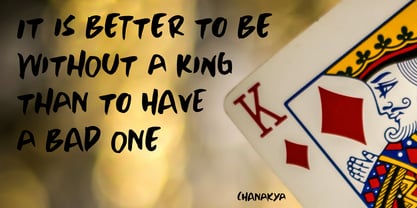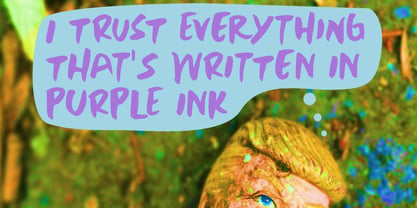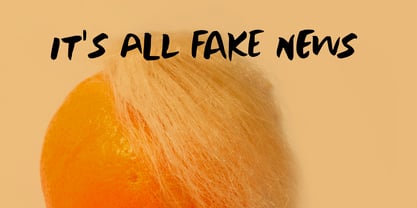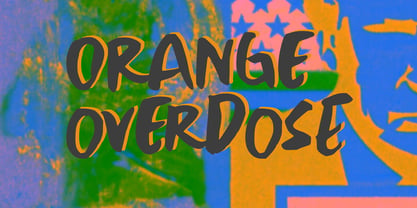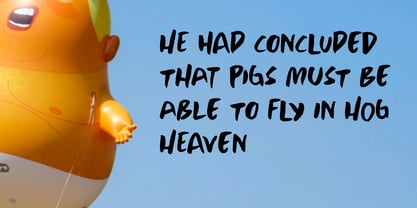
Orange Overdose Pro
by Hanoded
So… I’m from The Netherlands and we love the colour orange. But sometimes you can’t escape the feeling that something you have liked for a long time now has a negative association, especially when an orange coloured person seems to dominate the news.
There’s not much I can do about that, but I can create a nice new font, give it a nice new name and hope for the best!
Orange Overdose is a brush type font, made with a smallish pencil and Chinese ink. It is messy, loud, all over the place and doesn’t stick to guidelines.
Designers: David Kerkhoff
Foundry: Hanoded